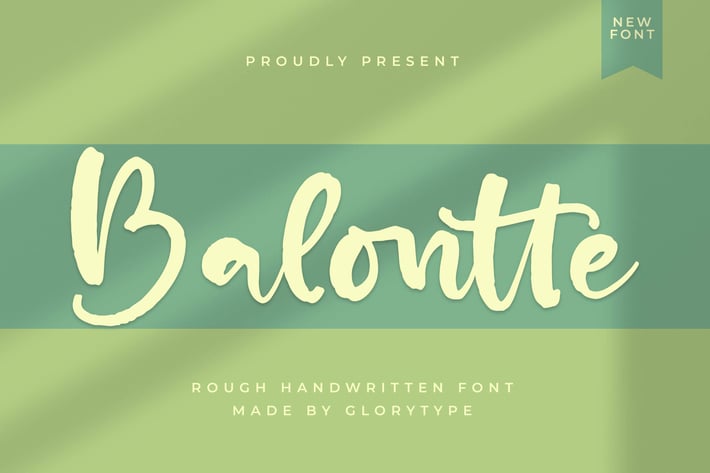
Balontte Rough Handwritten Font
Balontte is a rough handwritten font with a chill, organic feel — imperfect in the best way. It brings that cozy, human touch like real ink on paper, making your designs feel warm, expressive, and effortlessly authentic.
Rough handwritten style with natural strokes
Casual, friendly, and expressive character
Slightly messy texture for a real handmade vibe
Easy to read while staying playful
Great balance between fun and usability
Quotes & motivational posters
Personal branding & lifestyle content
Social media graphics & reels covers
Journals, planners, and stickers
Casual logos & merch designs
Raw, real, and full of personality — Balontte feels like handwriting with soul.*